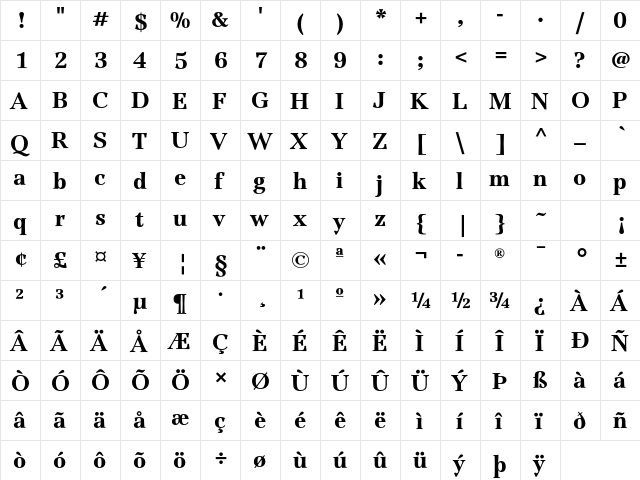
Jamille ITC Std Black
| Designer | Mark Jamra |
Design Context for Jamille ITC Std Typeface
Jamille ITC Std is a composed and adaptable typeface that performs quietly and consistently across a wide range of design contexts.